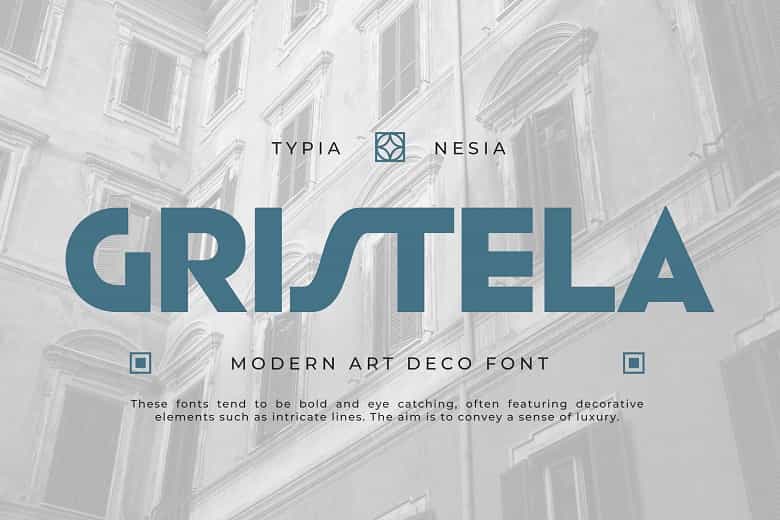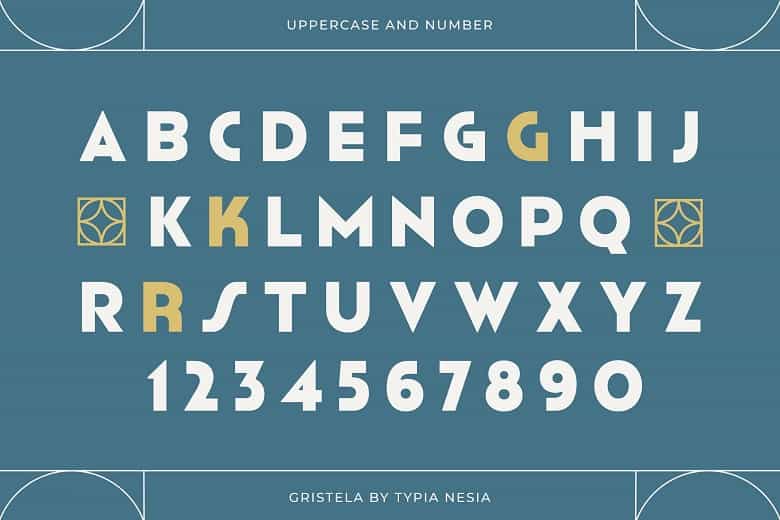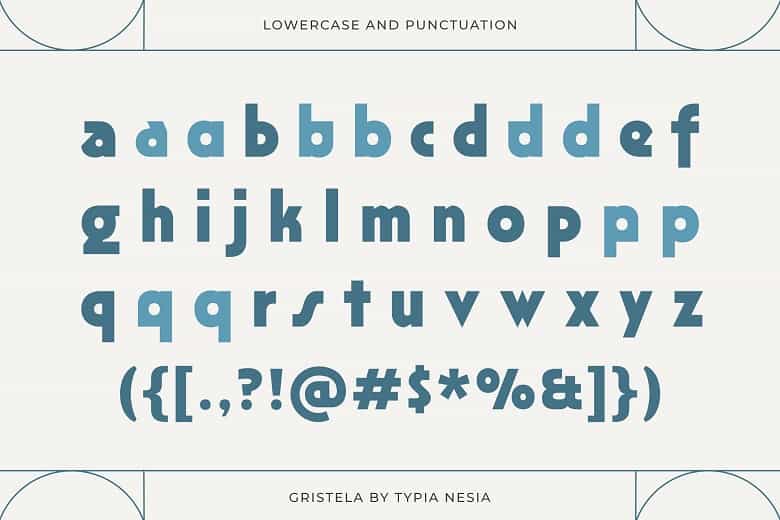
Gristela is a modern art deco sans font that reflects the spirit of artistic style of the Art Deco movement but with a face lift in design. Its modern and geometric shape gives a Modern and elegant look to any project, including branding, packaging, editorial design, event invitations, posters, product advertisements and any project that needs a Modern and bold touch.